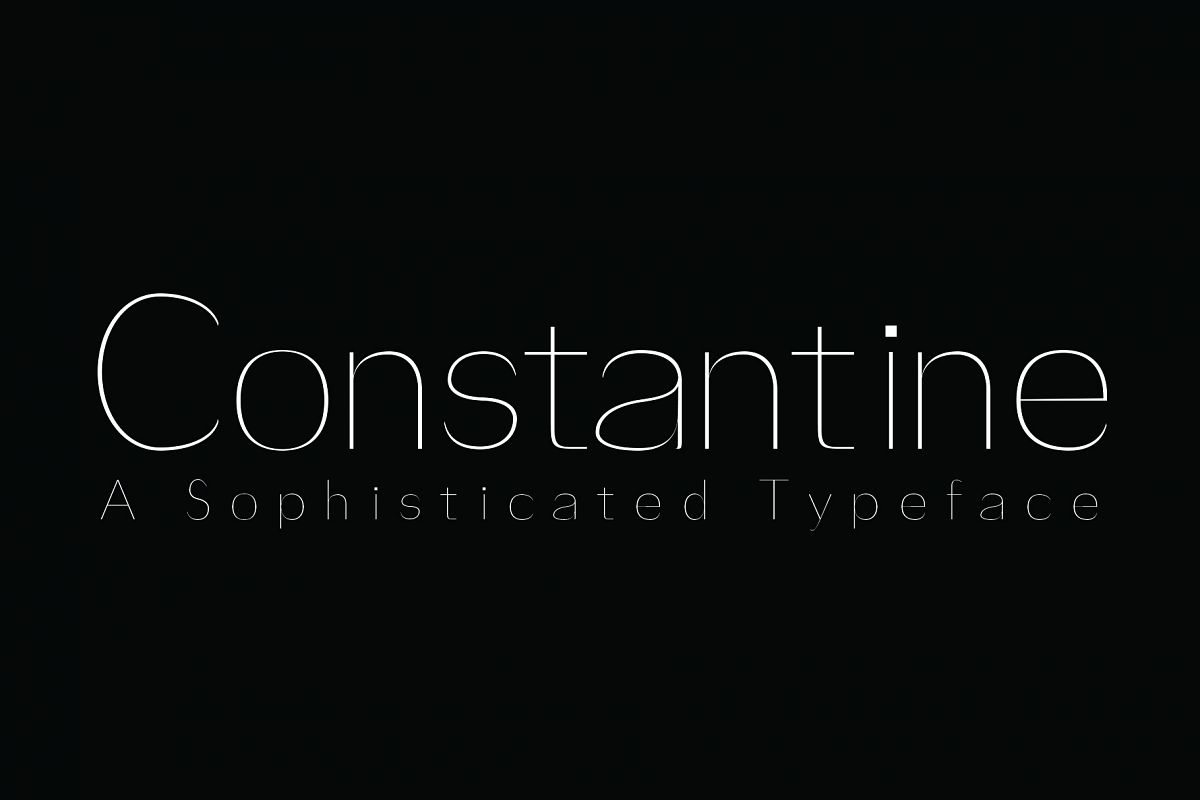
Created By Dene Studios
Constantine
A simple yet elegant font. Its style makes it perfect for use in your design projects.
Constantine
By Dene Studios